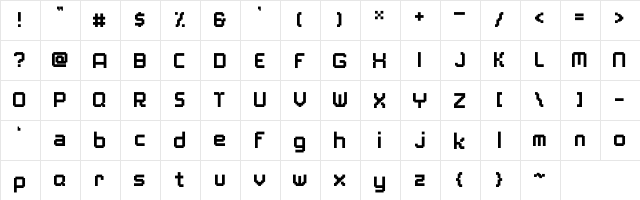
PlayMeGames Demo
| Foundry | ghielzact |
| Designer | Ghielz |
Design Context for PlayMeGames Typeface
PlayMeGames is a composed and adaptable typeface that performs quietly and consistently across a wide range of design contexts.